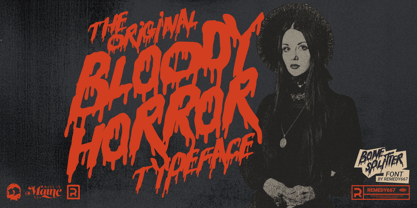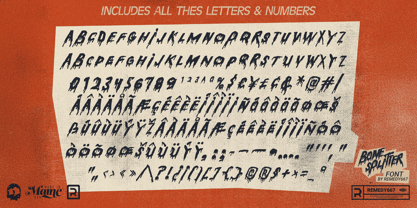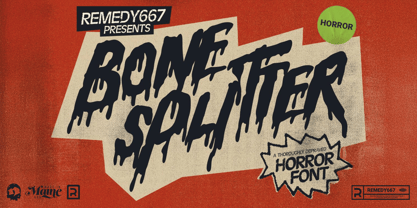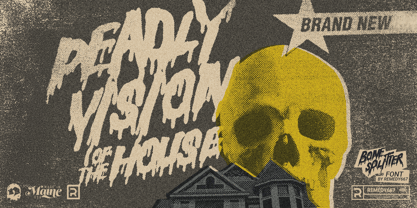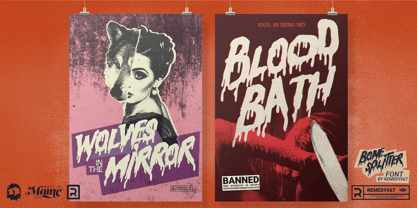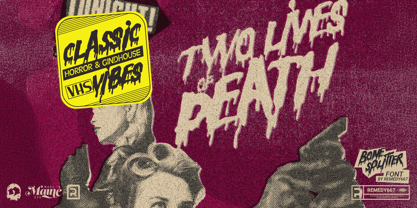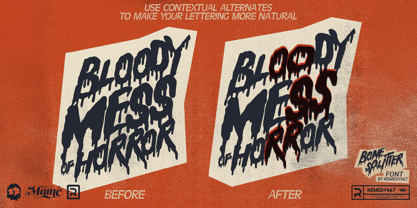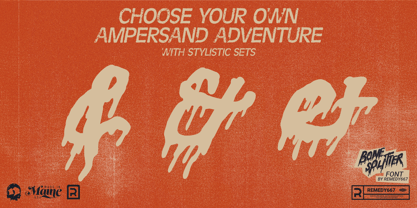
Bone Splitter
by Remedy667
The Bone Splitter Font Family was designed by Nick Polifroni and published by Remedy667. Bone Splitter contains 1 styles. More about this family
The Original Bloody Horror Typeface! Bone Splitter is the perfect typeface for horror movies, graphic artists, and all who love the undead. It’s great for any type of project that needs that perfect touch of blood and death, like video game titles, posters, apparel, album artwork, horror movies, etc.
Are you looking for a font that will really give the perfect feel of the horror genre to your project? Bone Splitter is the font for you, with its signature bloody font style. Take some time to design something terrifying with Bone Splitter.
Designers: Nick Polifroni
Foundry: Remedy667